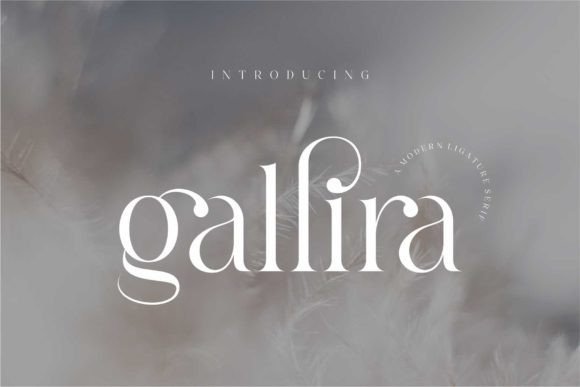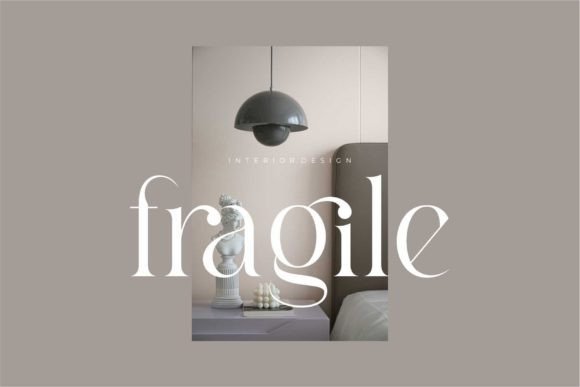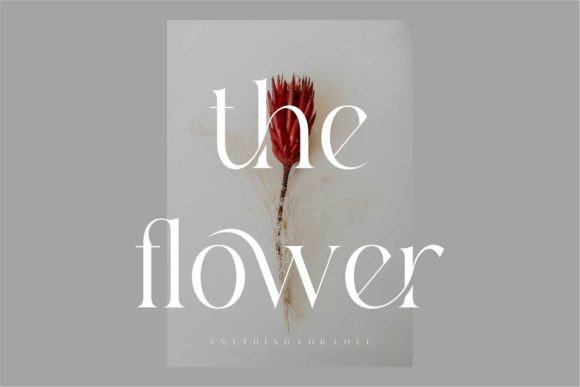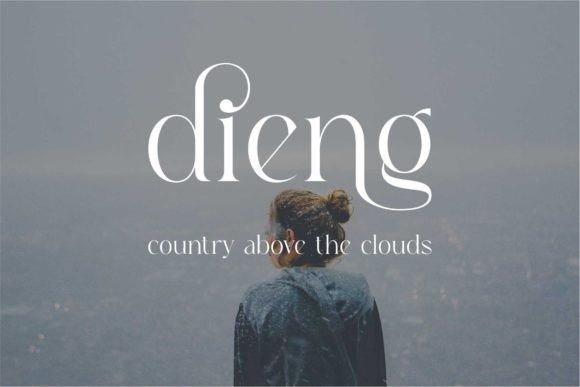
Gallira Font: Elegant Serif for Modern Logo Design & Wedding Typography
About the Gallira Font
Add a touch of class to your work with the Gallira Font, a truly exceptional typeface. Gallira is an elegant and bold serif font. Fall in love with its incredibly cersatile style and use it to create gorgeous wedding invitations, beautiful stationary art, eye-catching social media posts, and much more!
Gallira’s elegant boldness makes it ideal for headlines, logos, and short-form text in branding materials, packaging, and posters. Its strong serifs provide a touch of classic sophistication, while its weight commands attention. However, its refined detailing isn’t suited to lengthy body text or user interfaces where readability is paramount.
Consider pairing Gallira with a clean sans-serif like Montserrat for a contemporary contrast, or a playful script font such as Great Vibes for a touch of whimsy in wedding invitations or other celebratory designs. For a more traditional feel, a neutral serif like Lora could work well.
Gallira projects a confident and sophisticated personality, perfect for brands aiming for a sense of timeless elegance and authority. Avoid using it where a friendly or informal tone is required.
Gallira Font Usage Examples
Gallira Font Example